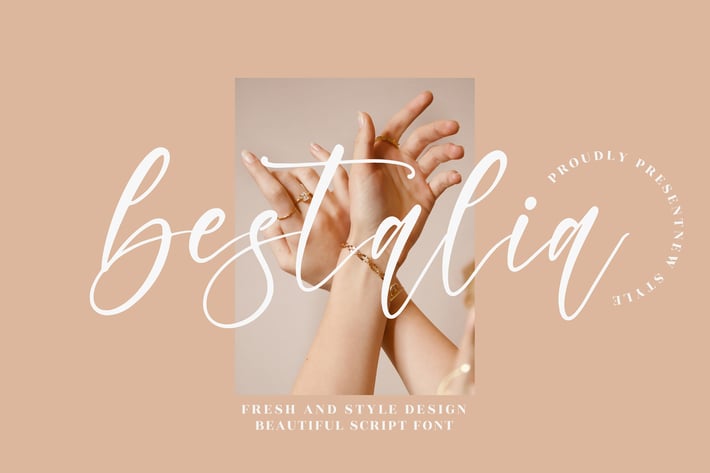
Bestalia Script Font
Bestalia Script Font is a fresh, stylish script font that brings a touch of elegance and personality to any design. Its smooth, flowing strokes and modern flair make it perfect for creating stunning, high-end projects with a personal touch.
Fresh and stylish handwritten script
Smooth, fluid strokes for an elegant, personal touch
Ideal for both digital and printed creative work
Branding and logo designs with a personal touch
Wedding invitations and event stationery
Elegant business cards and promotional materials
Social media posts and inspiring quotes
Photography branding and watermarks
Product labels and packaging
Modern and chic event designs
Stylish, fresh, and effortlessly beautiful — Bestalia Script Font is the perfect choice for creative, high-end designs.*